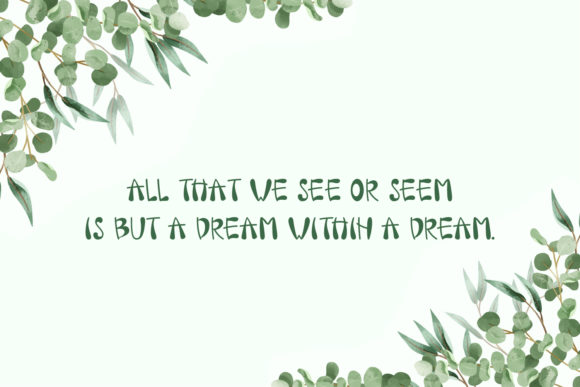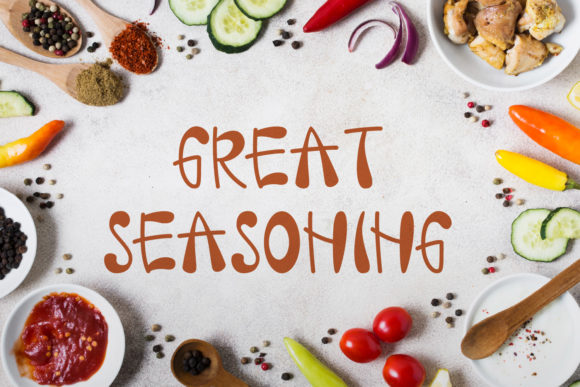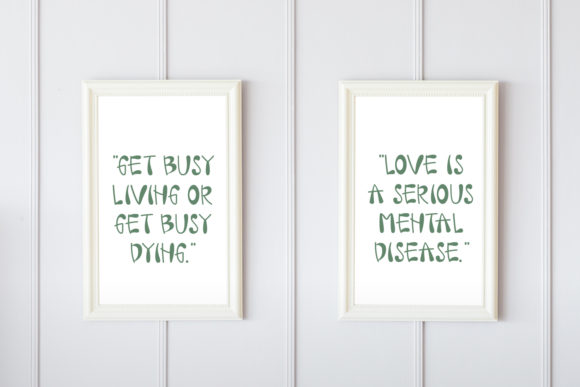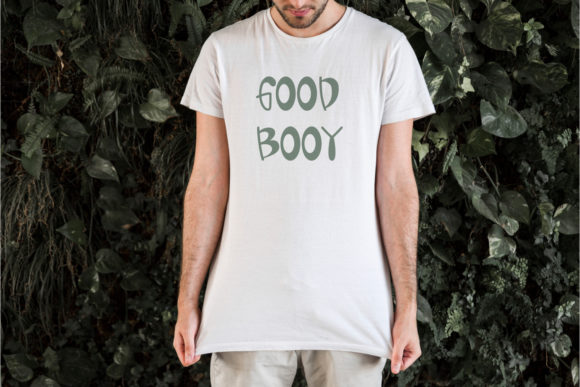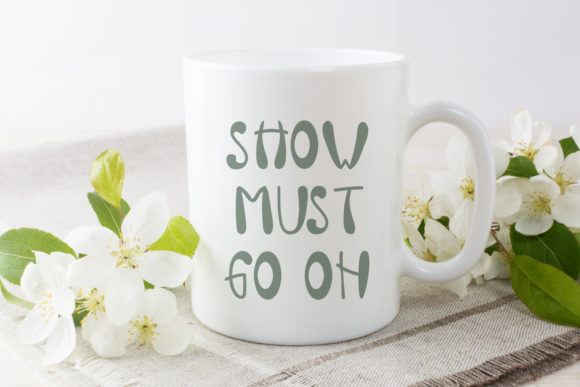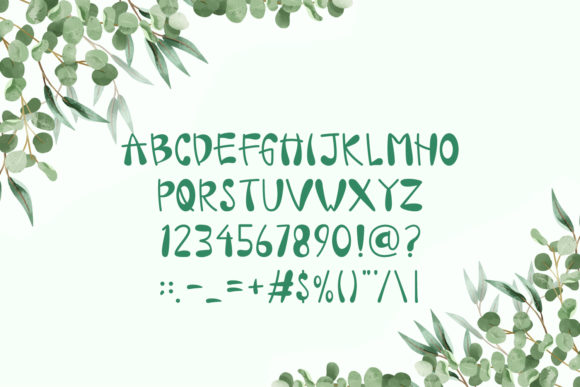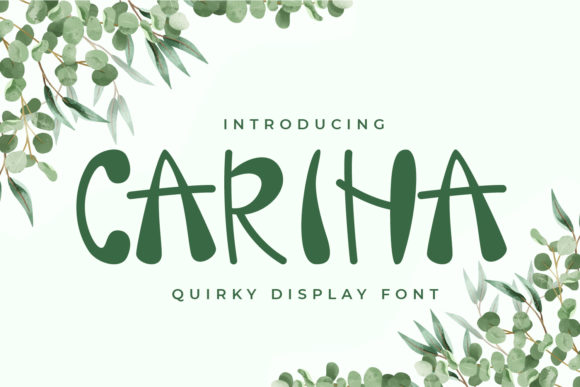
Introducing Carina Font: The Perfect Blend of Cuteness, Quirkiness, and Boldness
Are you a designer, crafter, or digital artist looking for a font that can add a touch of trendiness to your projects? Look no further than Carina Font! This adorable display font is perfect for a variety of creative endeavors, from crafting and digital designing to presentations and greeting cards making.
What Makes Carina Font So Special?
Carina Font is a unique and eye-catching font that boasts the perfect blend of cuteness, quirkiness, and boldness. Its distinctive style makes it stand out from other fonts, ensuring that your projects will grab attention and leave a lasting impression. Whether you’re creating a handmade card, a digital graphic, or a presentation, Carina Font is sure to add a touch of personality and whimsy.
Perfect for Crafters and Designers
Carina Font is a versatile font that can be used for a wide range of creative projects. Crafters will love using it for:
- Handmade cards and gift tags
- Scrapbooking and journaling
- Doodle art and illustration
- DIY projects and crafts
Designers, on the other hand, will appreciate its:
- Bold and eye-catching style, perfect for headlines and titles
- Flexibility and versatility, suitable for a variety of design projects
- Easy readability, ensuring that your message gets across clearly
Key Features of Carina Font
So, what makes Carina Font so special? Here are some of its key features:
- Cute and quirky style: Carina Font boasts a unique and playful style that’s sure to add a touch of whimsy to your projects.
- Bold and eye-catching: With its bold lines and distinctive shape, Carina Font is perfect for making a statement.
- Trendiness: This font features the perfect amount of trendiness, ensuring that your projects will look modern and fresh.
- Easy to read: Despite its bold style, Carina Font is easy to read, making it perfect for both digital and print projects.
How to Use Carina Font
In conclusion, Carina Font is a versatile and eye-catching display font that’s perfect for designers, crafters, and digital artists. Its unique blend of cuteness, quirkiness, and boldness makes it a great addition to any creative project. So why not give it a try? Download Carina Font today and add a touch of trendiness to your next project!
Whether you’re creating handmade cards, digital graphics, or presentations, Carina Font is sure to impress. Its bold style, easy readability, and flexibility make it a great choice for a wide range of creative endeavors. So don’t wait – get creative with Carina Font and see the amazing results for yourself!